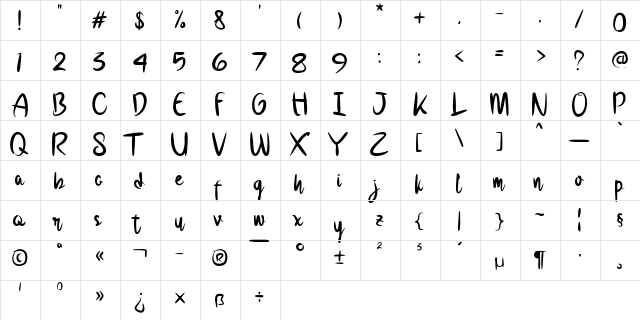
Creata DEMO Regular
Design Context for Creata DEMO Typeface
Creata DEMO is a composed and adaptable typeface that performs quietly and consistently across a wide range of design contexts.